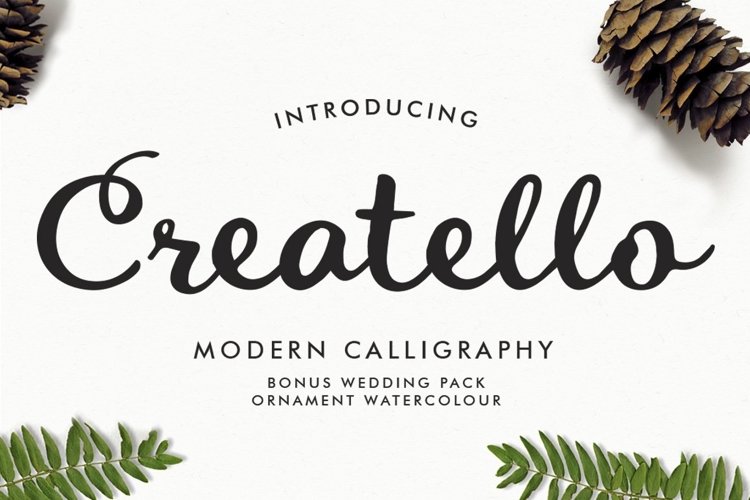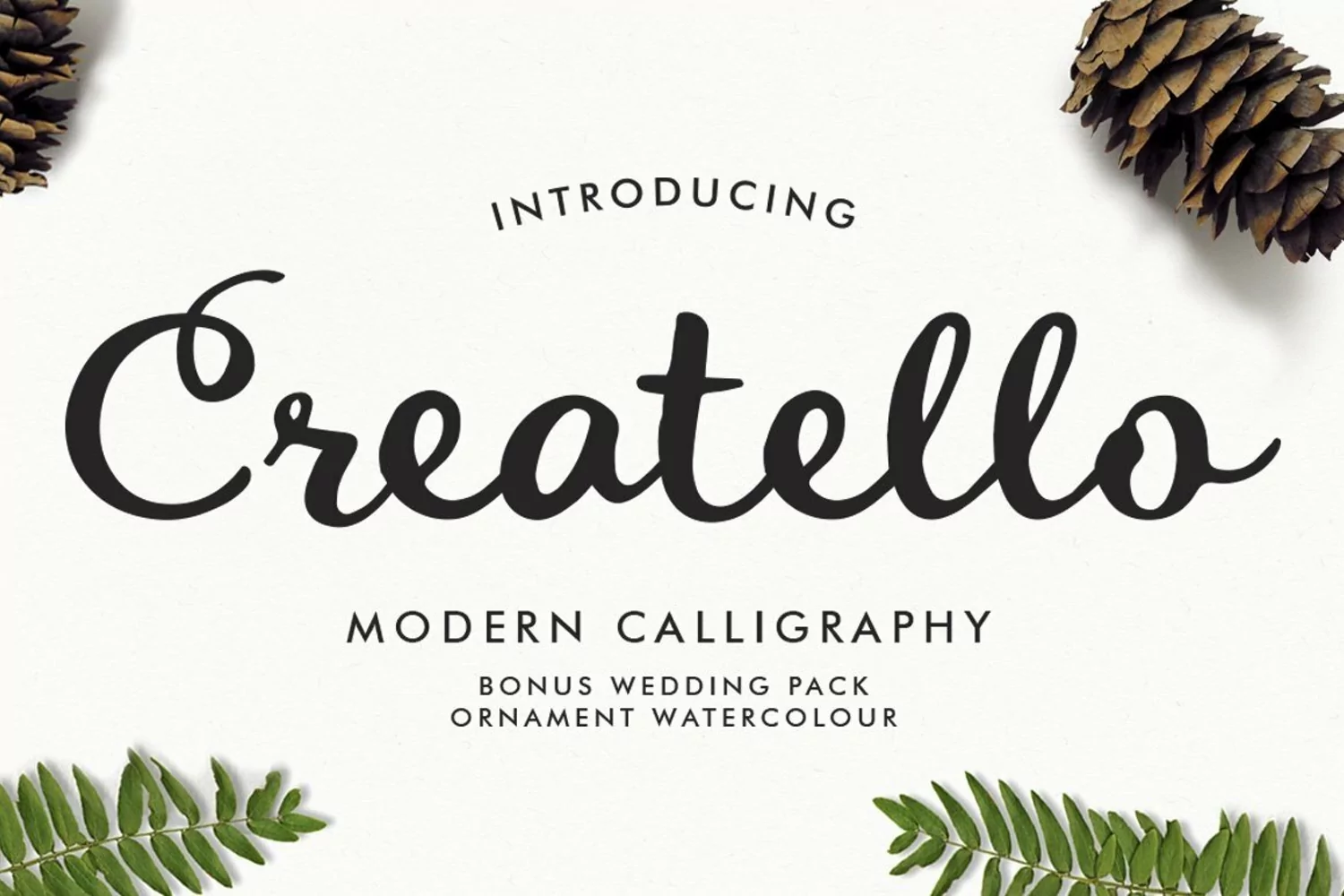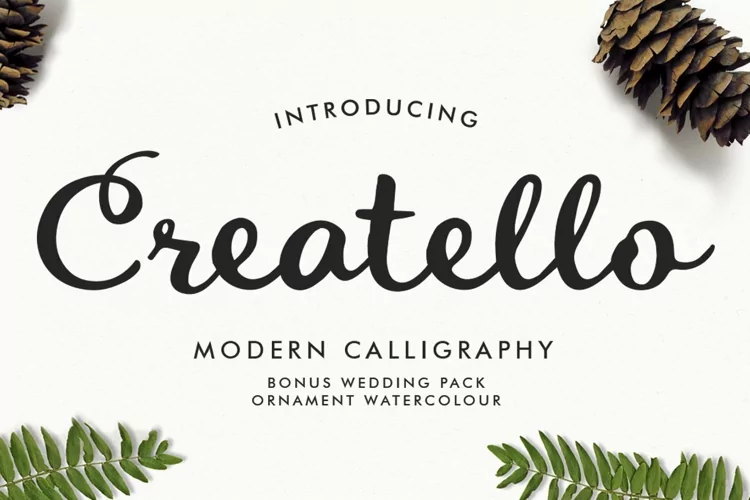
Creatello Script is a modern calligraphy font. Creatello a beautiful for logotype, website header, fashion design,wedding card design, poster, clothing, and will add a beautiful touch of handmade love to your projects- use it for wedding invitations, posters, logos and more. Creatello script comes with elegant style, It also comes as a creatello font. It contains a full set of lower & uppercase letters, a large range of punctuation, and numerals